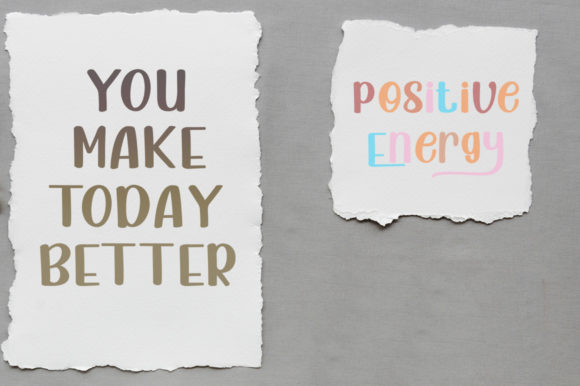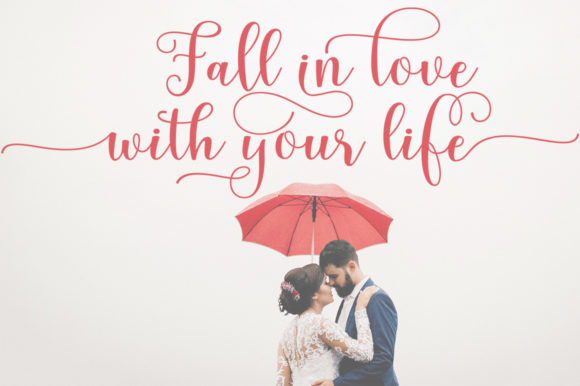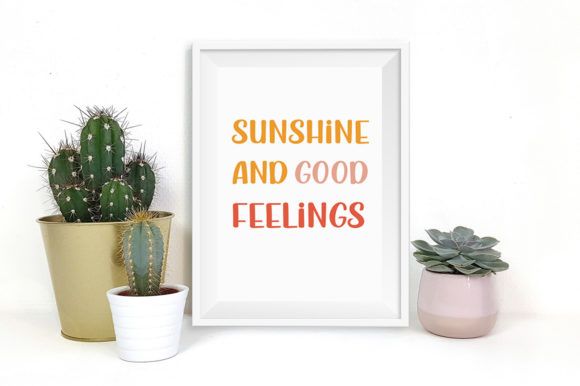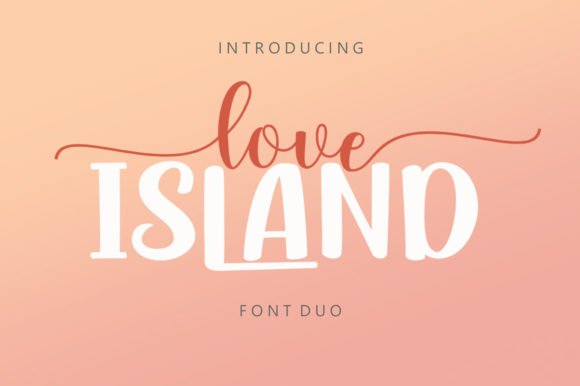
Introduction to Love Island Duo Font
Love Island Duo is an incredibly relaxed, lovely and flowing duo font (sans serif and script).
This font is PUA encoded which means you can access all of the glyphs and swashes with ease Fall in love with its incredibly versatile style and use it to create spectacular designs.